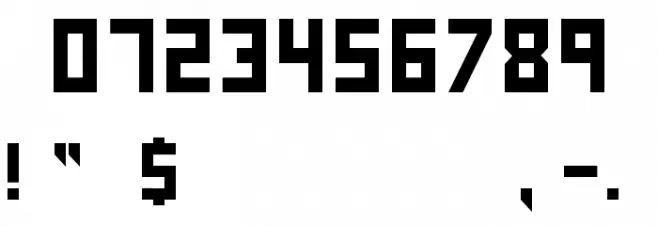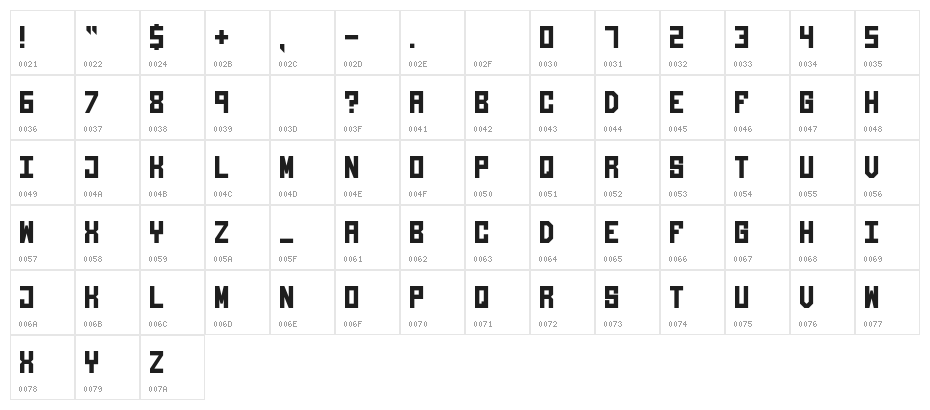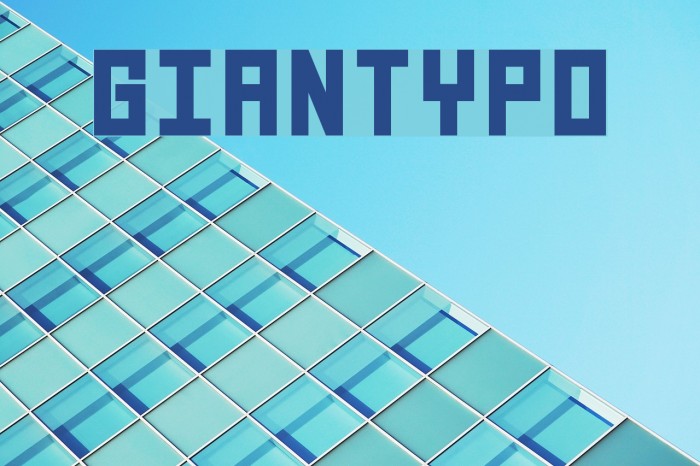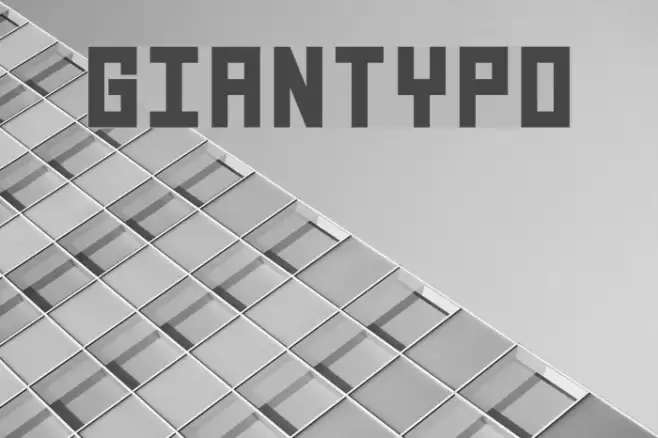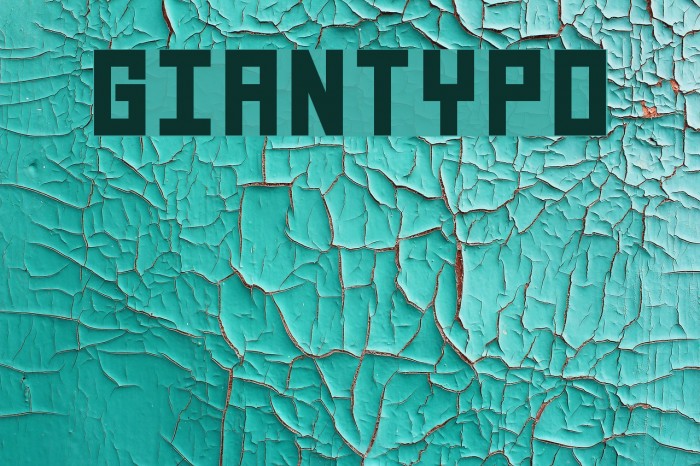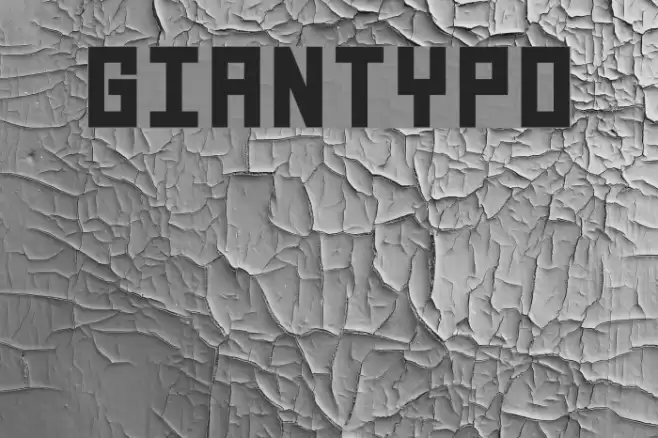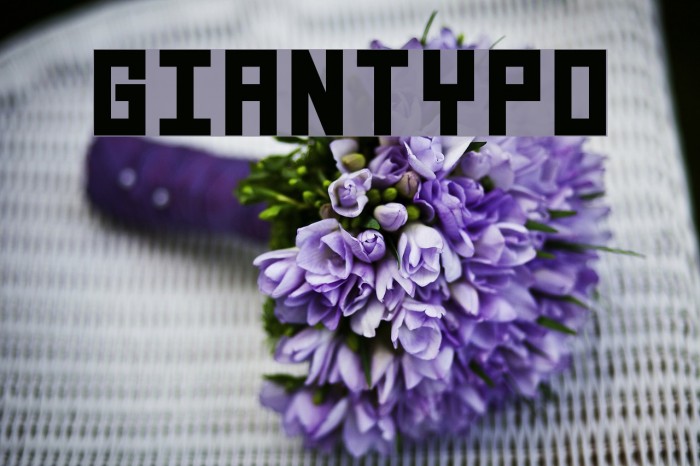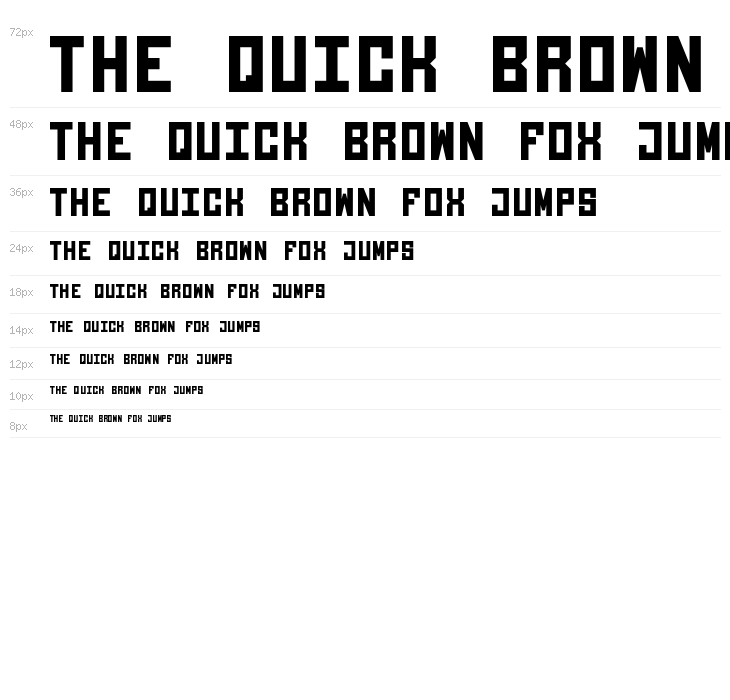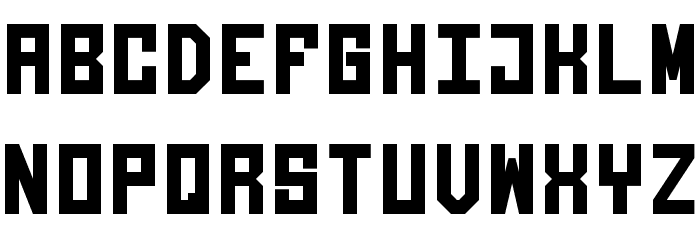
GIANTYPO Font
GIANTYPO Description
This font features a bold, geometric design with a strong presence. The characters are constructed with straight lines and sharp angles, giving them a blocky, industrial feel. The uppercase and lowercase letters maintain a consistent height, contributing to a uniform appearance. The numbers and special characters follow the same design principles, ensuring cohesion across all glyphs. This font's boldness and clarity make it suitable for impactful designs where readability and a modern aesthetic are key.